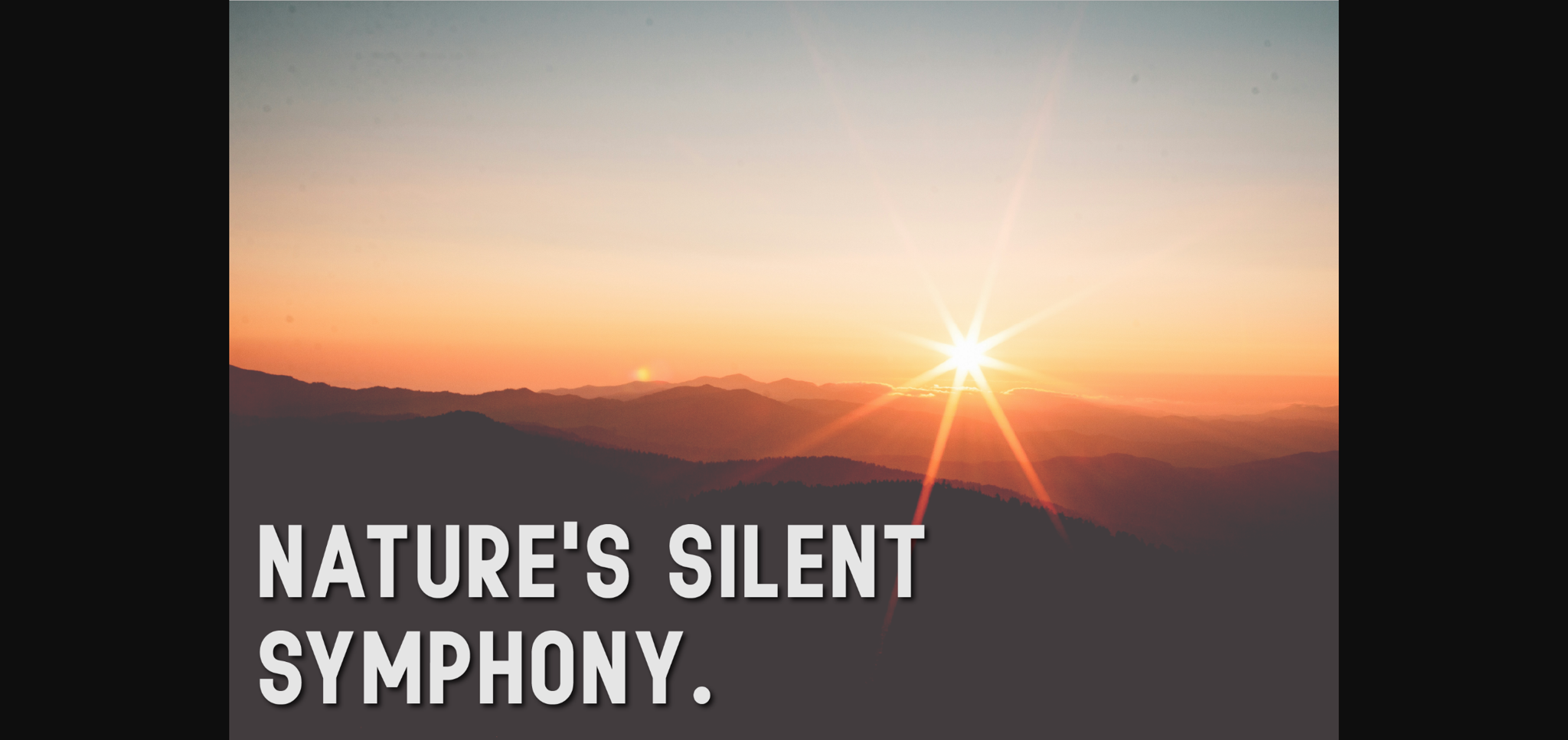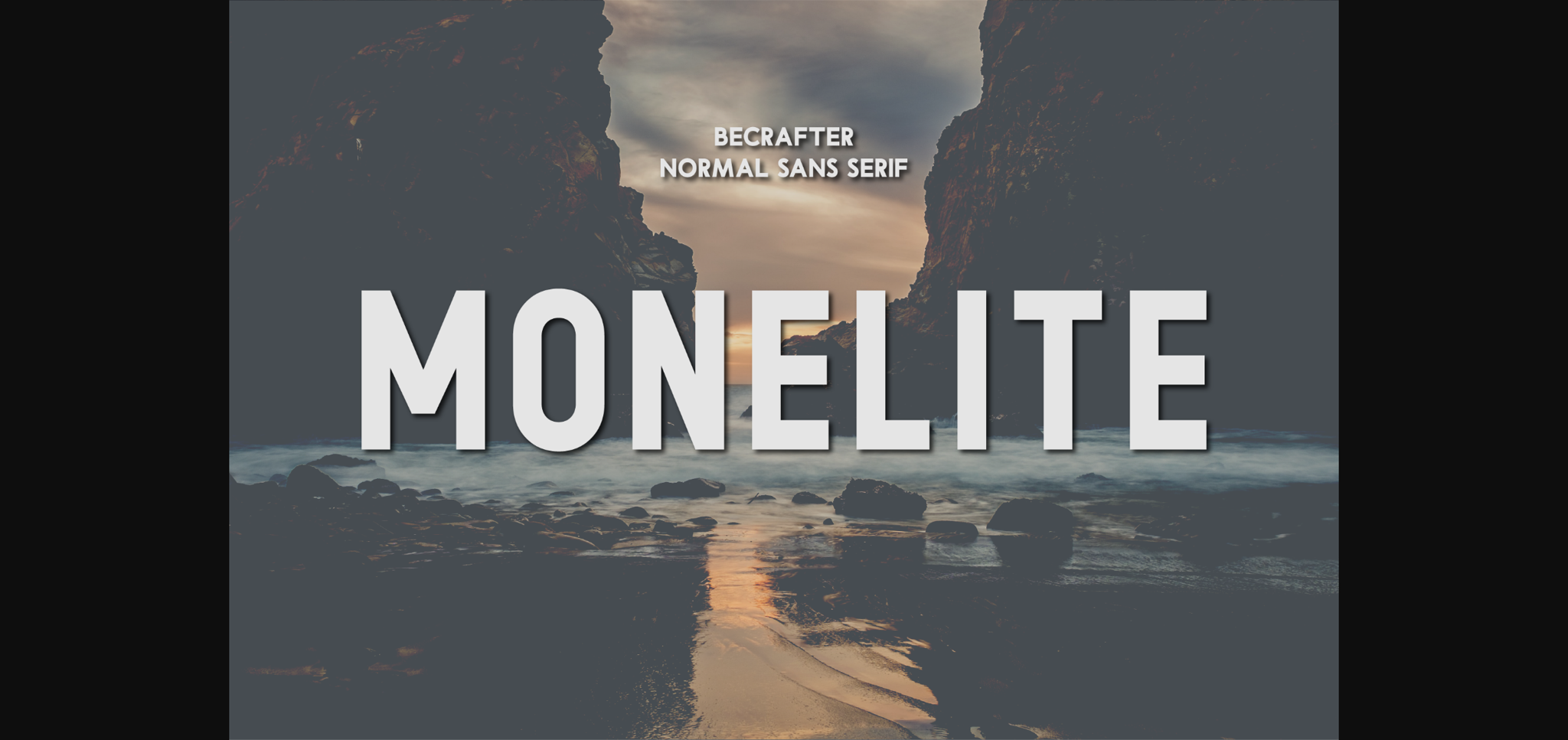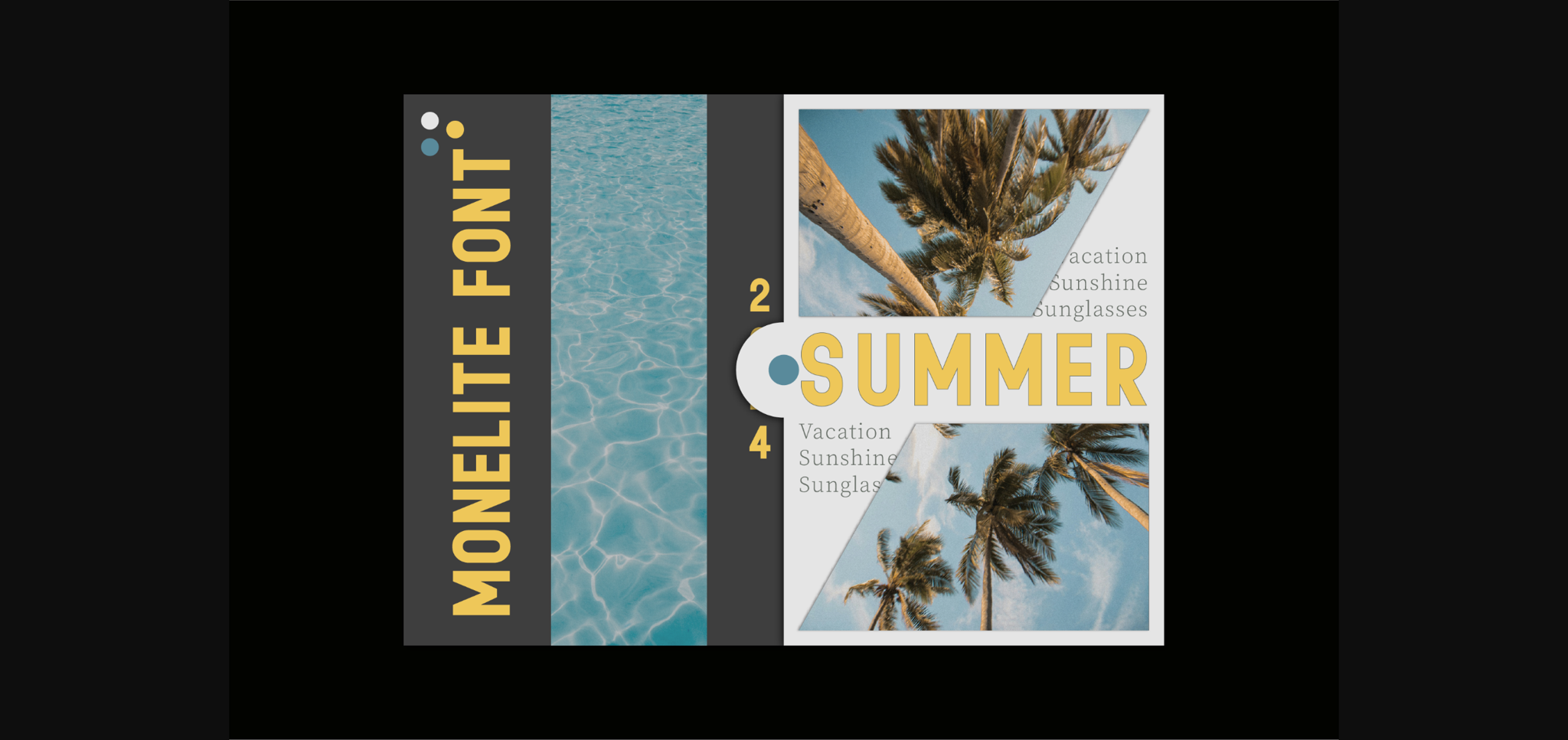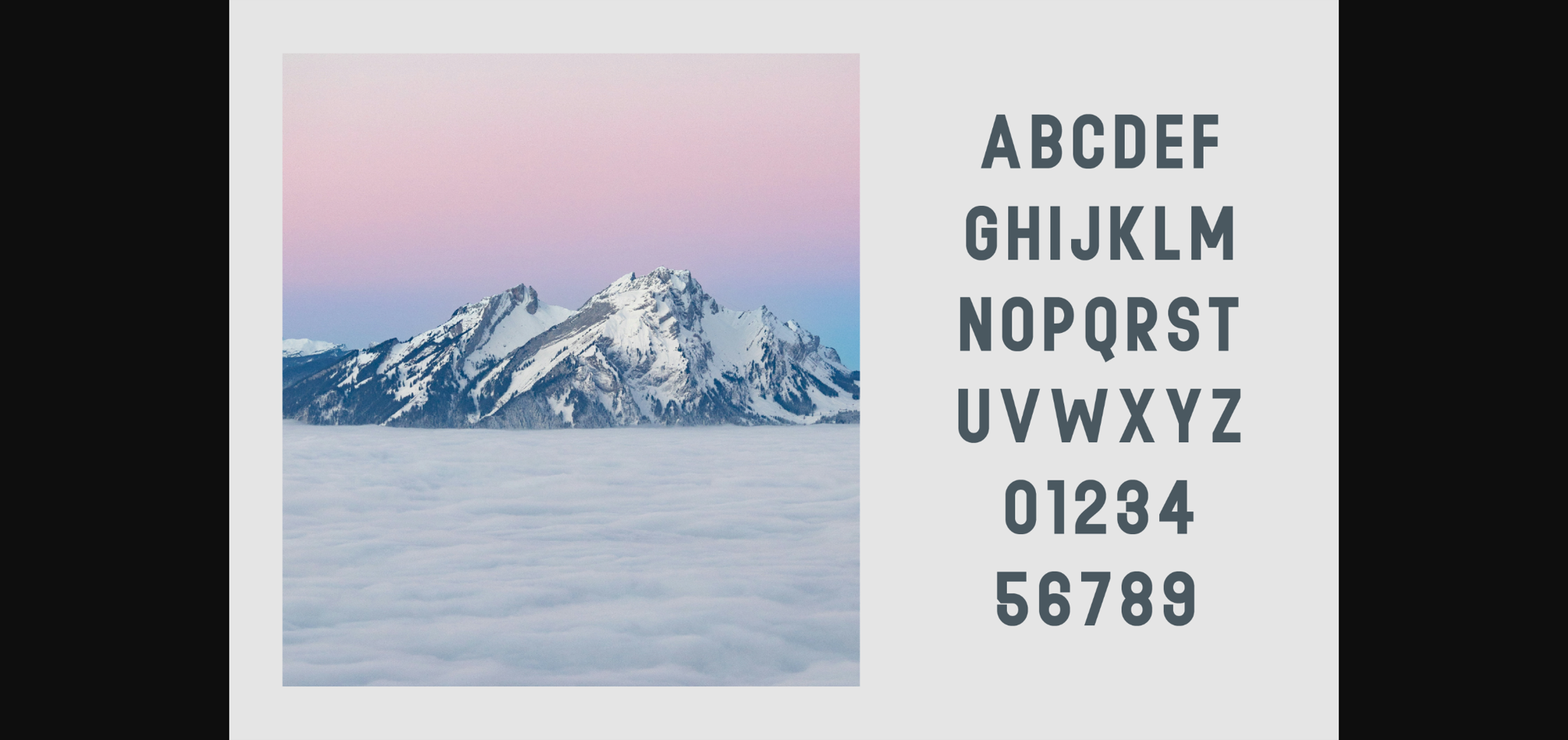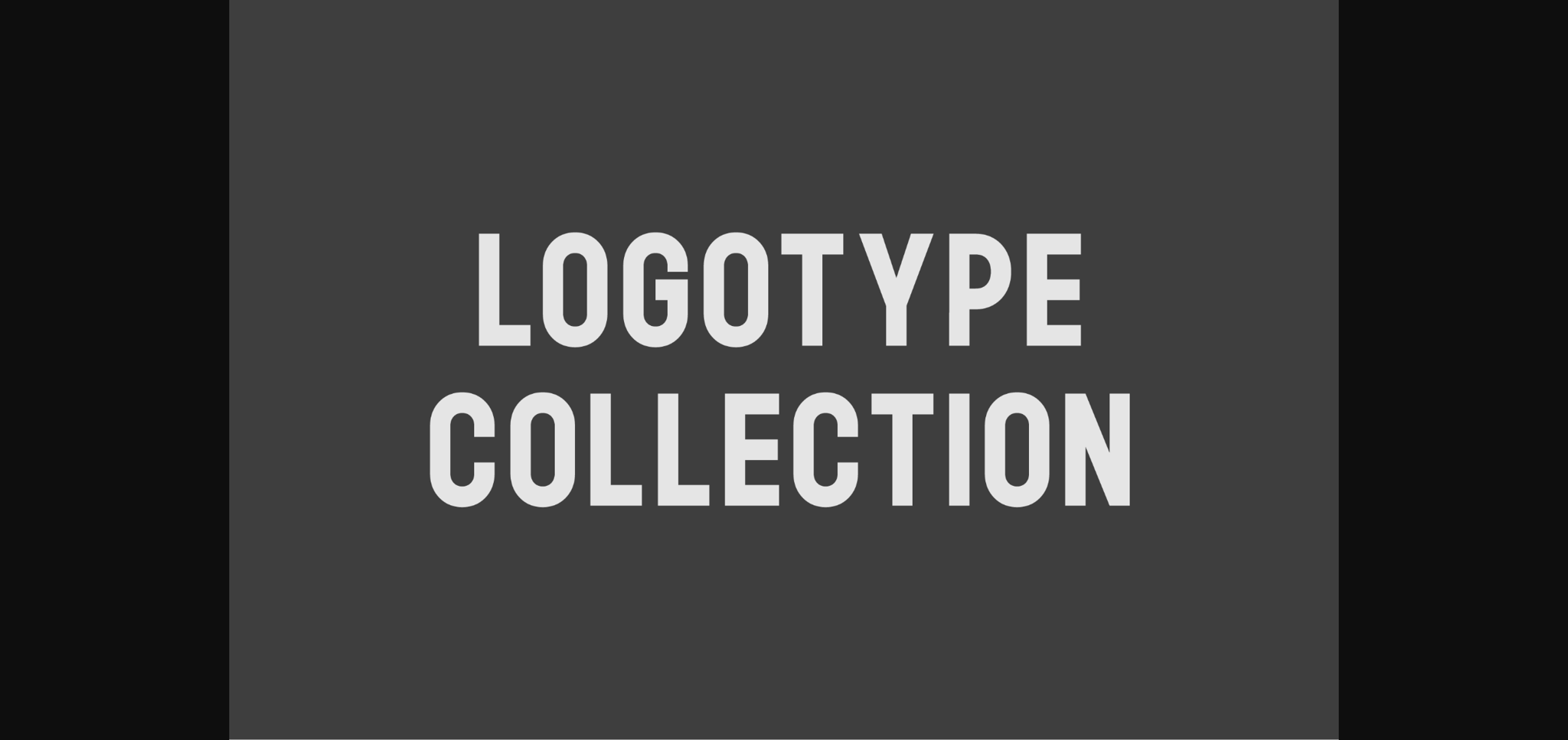
Monelite Font
About Monelite Font
Unleash a wave of bold elegance with Monelite, a sans-serif font that packs a prodigious punch. Distinguished by its audacious boldness, Pinomatrix leaves an indelible impression, owing to its razor-sharp edges. Coupled with a sublime sophistication, these elegant sharp edges bestow an air of modernity and strength. Dive into the captivating world of Monelite and let your typographic expression become a commanding statement.